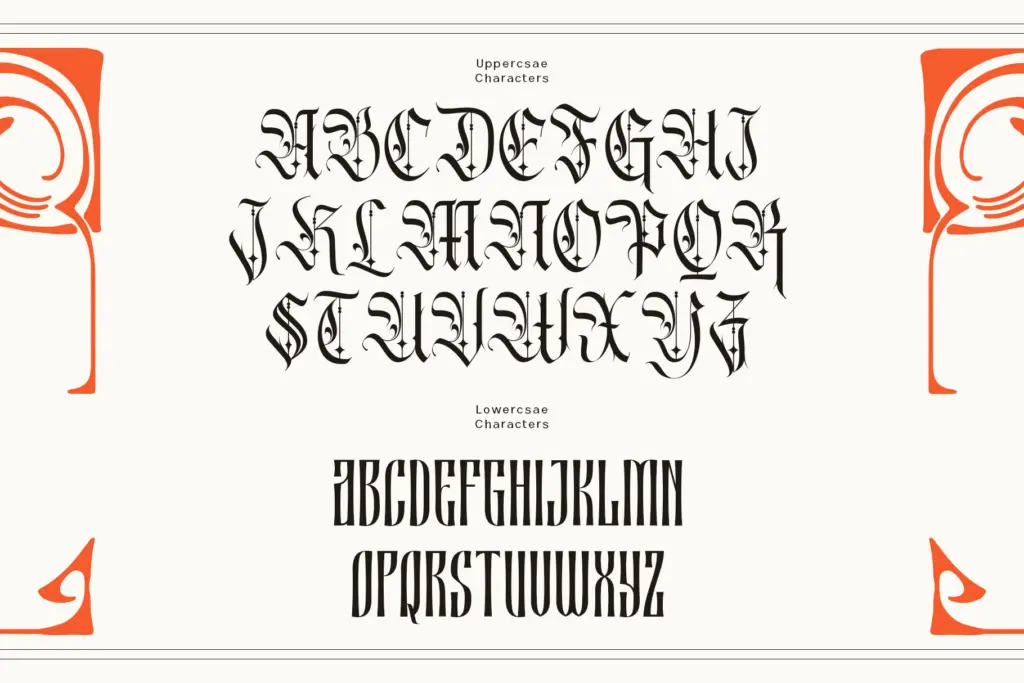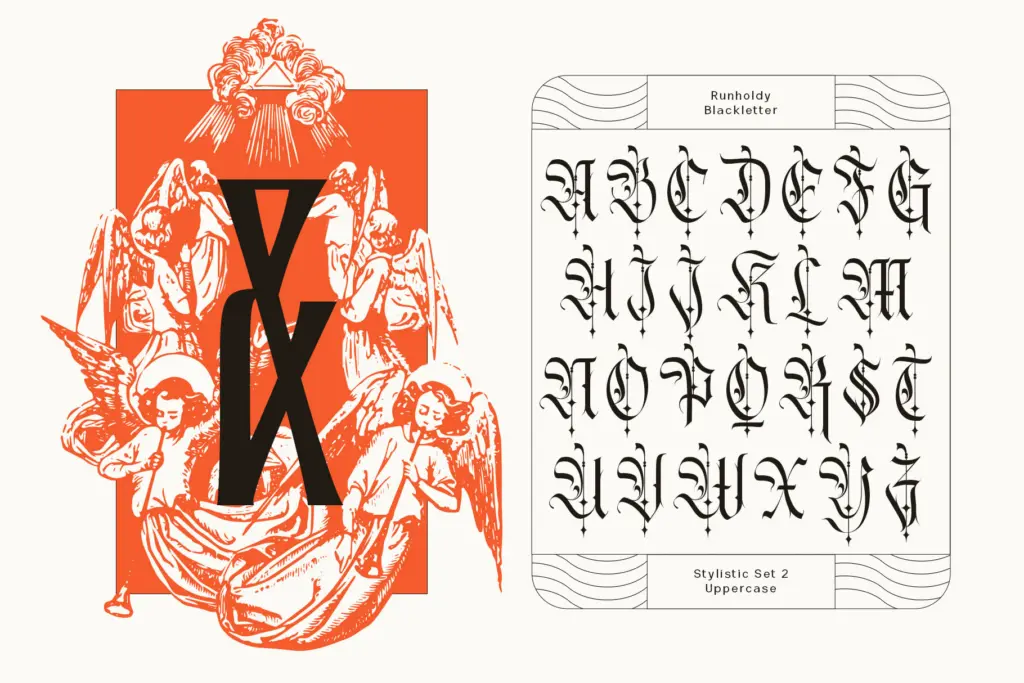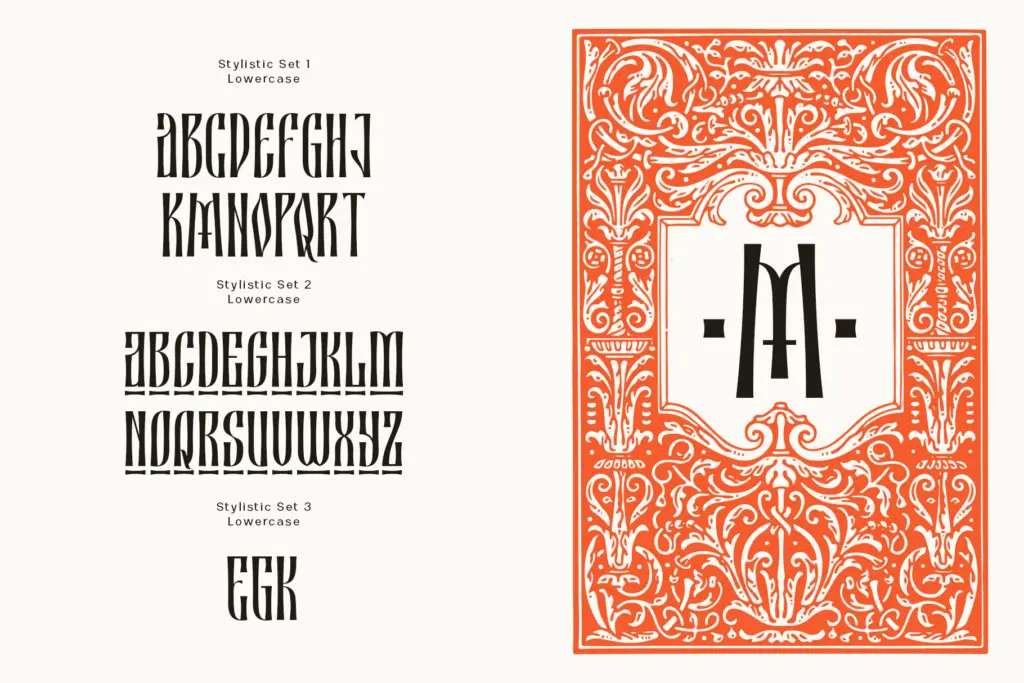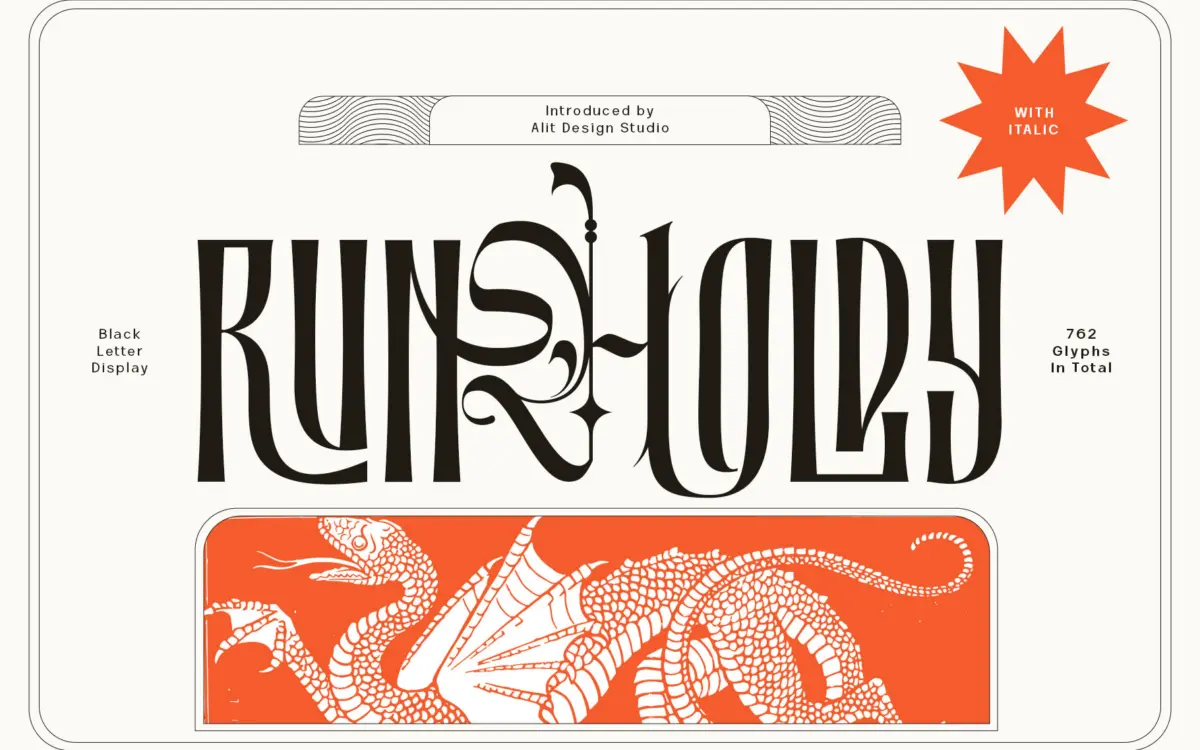
Runholdy sits at the crossing of two families that rarely share a stroke chart: blackletter’s angular density and the open geometry of a modern sans. The result isn’t a straightforward gothic revival. Verticals carry the weight and darkness you’d expect from a broken script, but the curves are cut back and simplified, so the letters read more like a sans that’s been sharpened with a blade than a historical textura. It’s a deliberate collision, and it mostly works because the designer didn’t try to soften it into something safe. The lowercase keeps sharp apex points and angled terminals, while the counters are kept wide enough that the letters don’t clot at small sizes the way true blackletter does.
The italic leans further into the swash-driven side of the family, with entry strokes that flick and extend rather than sit quietly. It’s the version to reach for when the goal is ornament over restraint. Paired together, roman and italic give you a face that can shift from stark and industrial to decorative depending on which cut you pick.
762 glyphs is a substantial set for a display face, and the bulk of it goes toward ligatures, swashes, and alternate forms rather than expanded language coverage. Latin support extends through Western, Central and South European character sets plus Vietnamese, which covers most European-market briefs without extra hunting for accented glyphs. The PUA encoding means the swash and ligature alternates are reachable even in apps without a proper OpenType features panel, which matters here because so much of the font’s character lives in those alternates rather than the base letterforms.
That said, this is not a font built for reading flow. The swashes are long, the ligatures are ornamental rather than functional, and getting the best out of the set means working glyph by glyph in something like Illustrator or InDesign, swapping in alternates by hand. Treat it as a kit of parts for a single word or short lockup, not a typesetting tool.
Runholdy is built for the kind of job where a single word carries the whole design: logotypes, badge marks, album covers, streetwear graphics, poster headlines. The blackletter-sans mix gives it an edge that reads as tough or gothic without tipping into medieval pastiche, which makes it a reasonable fit for brands after a modern-dark aesthetic rather than a heritage one. The swash-heavy italic suits short decorative lines — a tagline, a single name, a label detail — where the extra flourish has room to breathe.
It is not built for body copy, small print, or anywhere legibility at reading size matters. The dense strokes and long swashes fight each other below display sizes, and the ligature set only pays off when someone is willing to hand-select glyphs rather than just type and walk away. Budget time for that if you take it on.
- Blackletter weight combined with sans-serif structure gives it a distinct, un-cliché gothic edge
- Large glyph set with genuine swash and ligature alternates for custom lockups
- PUA encoding makes the decorative alternates accessible even without a glyphs palette
- Dense strokes and long swashes make it unreadable at small or body-copy sizes
- Getting the most from the ligature set requires manual glyph substitution rather than default typing
Runholdy is a distinctive blackletter-sans hybrid built for single-word impact rather than reading. The glyph set rewards manual glyph-picking more than casual typing, and it stays firmly in display territory. Good pick for gothic-leaning branding and badge work, weak choice for anything set small.